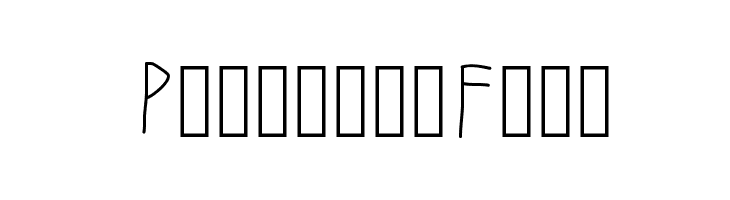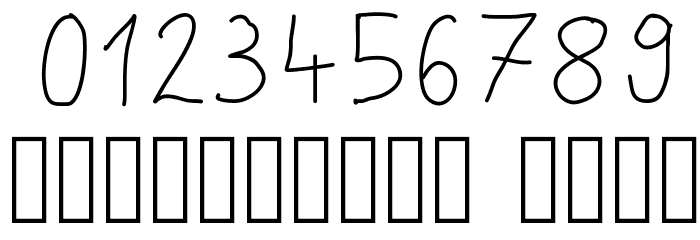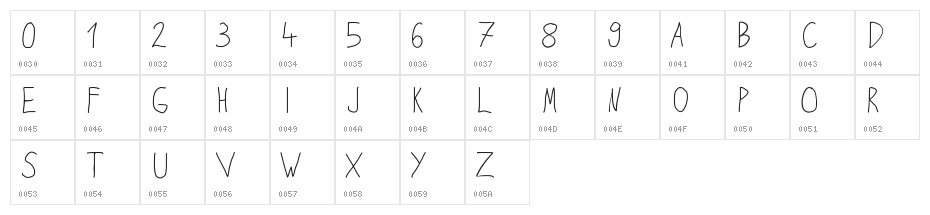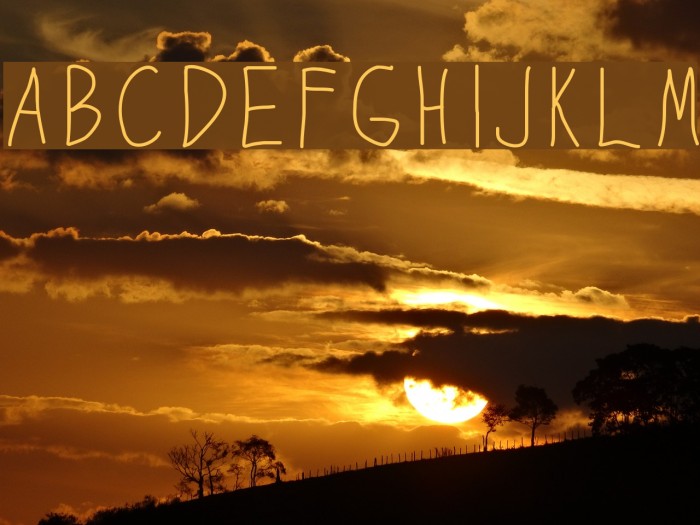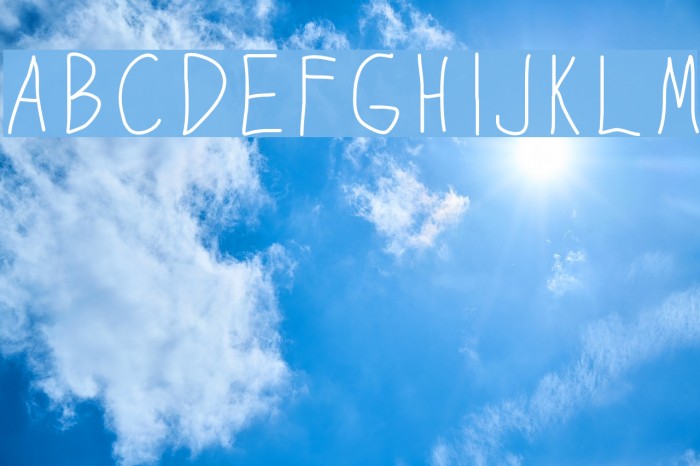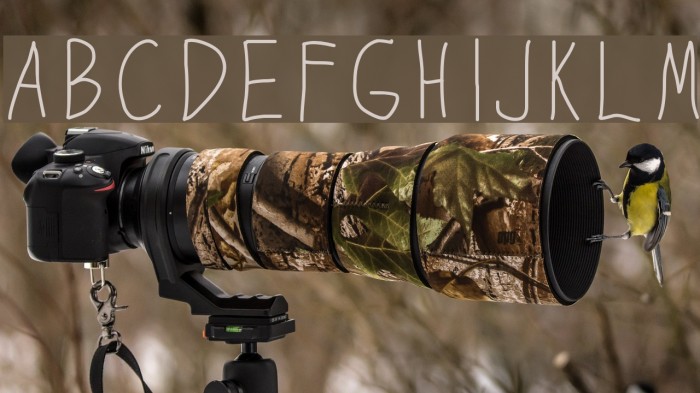
PhotocadFont Font
PhotocadFont Description
This font features a casual, handwritten style with a playful and informal appearance. The letters are slightly irregular, giving it an authentic, personal touch. The strokes are consistent in thickness, providing a uniform look across all characters. The uppercase letters are tall and slender, while the lowercase letters maintain a similar height, creating a cohesive visual flow. The numerals are clear and legible, matching the overall style of the alphabet. This font lacks special characters, focusing on a straightforward presentation.
| Proposed Projects | Ideal for personal notes, informal invitations, children's books, and creative projects that require a friendly and approachable feel. |